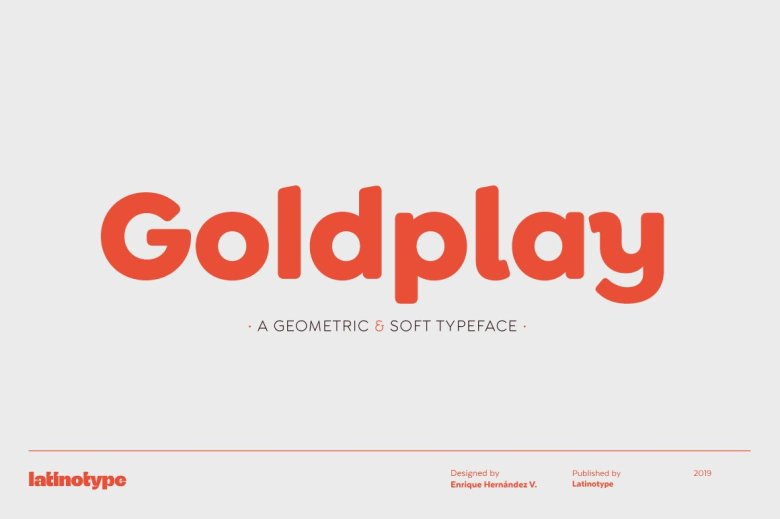
Goldplay Sans Font
Goldplay Sans Font is based on Isidora Sans design yet features rounded shapes. Its rounded, soft terminals give it a friendly and expressive look, and its modern and contemporary style as well as its classic proportions make it an excellent choice for headlines, logotypes, branding, books, magazines, motion graphics, and use on web and Tv.
One of its key features is a small x-height which make it look elegant and classy. Goldplay comes in 2 versions—each in 7 weights, from Thin to Black, and matching italics, resulting in a total of 28 fonts.